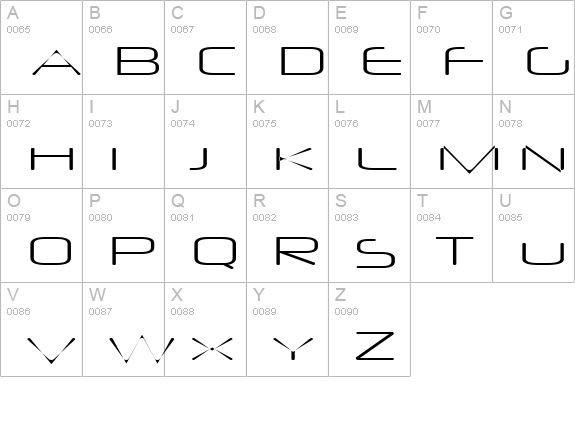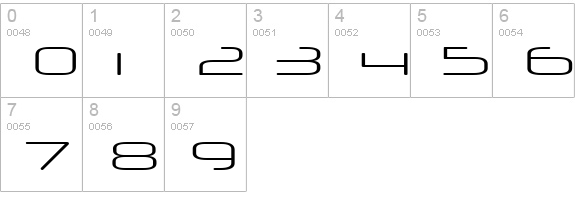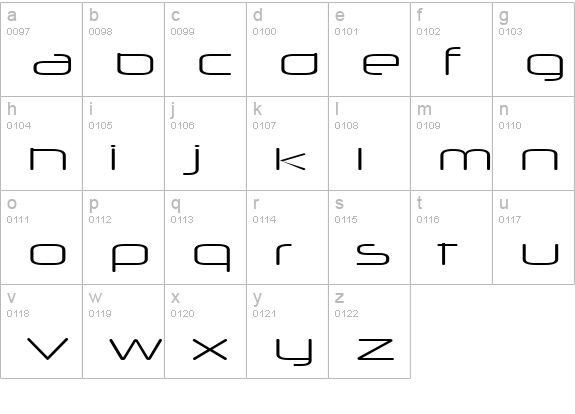
Neuropol X Xp Lite Font Details
Neuropol X Xp Lite font is a sleek and futuristic typeface that exudes a sense of modernity and innovation. Its clean lines and geometric shapes make it perfect for conveying a sense of technology and forward thinking in design projects. This font is ideal for use in logo design, branding, and digital interfaces where a contemporary and stylish look is desired. The best part about Neuropol X Xp Lite font is that it is completely free to download. You can easily access this cutting-edge font at FontsMarket.com, where you can enhance your creative projects without any cost. Don't miss out on the opportunity to add this versatile and eye-catching font to your design arsenal today!